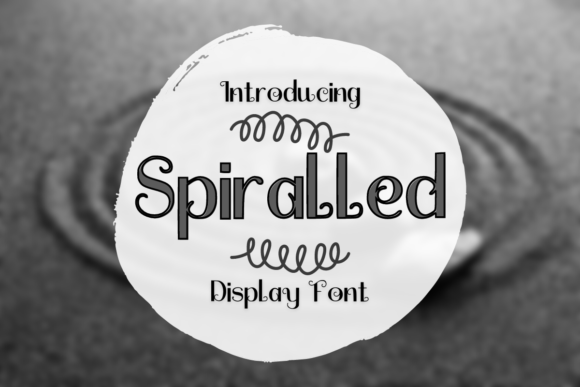
Spiralled: Elevating Design with Elegant Typography
The right typeface doesn't just carry a message; it sets the entire mood. In the world of visual design, where first impressions are instantaneous, choosing a font with character is paramount. Spiralled is a beautiful, chic, and elegant display font that offers that exact unique touch, transforming ordinary layouts into sophisticated statements. It's a creative asset designed for projects that demand a blend of classic charm and modern aesthetics, perfect for designers seeking to inject personality and professionalism into their work.
The Role of Distinctive Typography in Modern Branding
In a saturated digital landscape, a strong brand identity relies on more than just a logo. It's a cohesive system of visual elements—typography, color palette, imagery, and composition—that communicates values and personality at a glance. Fonts like Spiralled play a critical role in this system. As a display typeface, its primary function is to capture attention and establish a tone. Its elegant swirls and balanced forms can convey luxury, creativity, or romance, making it a powerful tool in a designer's toolkit for visual hierarchy and emotional connection.
Practical Applications for Creative Projects
The versatility of a well-crafted display font allows it to enhance a wide array of creative projects. Consider how Spiralled can be integrated into your design workflow to improve both aesthetics and communication.
- Branding & Logo Design: A logo set in an elegant typeface can instantly position a brand in the premium or boutique market. It works beautifully for lifestyle brands, high-end consultants, or artisanal products.
- Marketing Materials: From business cards and letterheads to brochures and posters, using a distinctive font for headlines ensures your collateral stands out and reinforces brand recall.
- Social Media Graphics: In the fast-scrolling world of social media, compelling typography is key. Use it for quote graphics, promotional banners, or event announcements to increase engagement and shareability.
- Website & UI Design: While body text requires high readability, strategic use of a display font for hero sections, key headings, or calls-to-action can significantly boost a website's visual impact and user experience (UX).
- Editorial & Packaging Design: Magazine covers, book titles, product labels, and packaging all benefit from a touch of elegance. It can elevate the perceived value of a product before it's even opened.
Integrating Creative Assets Effectively
Simply having a beautiful font isn't enough; its effective use is what separates good design from great. When incorporating any new creative asset into your projects, consider these professional principles:
- Maintain Consistency: Ensure the font aligns with your overall brand identity and color palette. Consistency across all touchpoints builds a cohesive and trustworthy brand image.
- Prioritize Readability: Display fonts are meant for impact, not for lengthy paragraphs. Use Spiralled for short, high-impact text like headlines, subheadings, or pull quotes to maintain clarity.
- Establish Visual Hierarchy: Pair it with a simpler, highly readable sans-serif or serif font for body text. This contrast creates a clear hierarchy that guides the viewer's eye naturally through the design.
- Consider Context and Audience: The elegance of a font should match the project's goals and audience expectations. It’s ideal for wedding invitations, luxury branding, or editorial layouts but might be less suited for a technical manual.
- Test for Scalability: Check how the font renders at various sizes, from a small favicon to a large print banner, to ensure its details remain clear and beautiful.
Thoughtful design is about making intentional choices that serve both form and function. Quality creative assets, like a versatile and elegant typeface, are not mere decorations; they are fundamental tools for effective visual communication. By selecting resources that enhance your brand's story and improve user engagement, you invest in a more polished, professional, and memorable presence across all your creative endeavors.